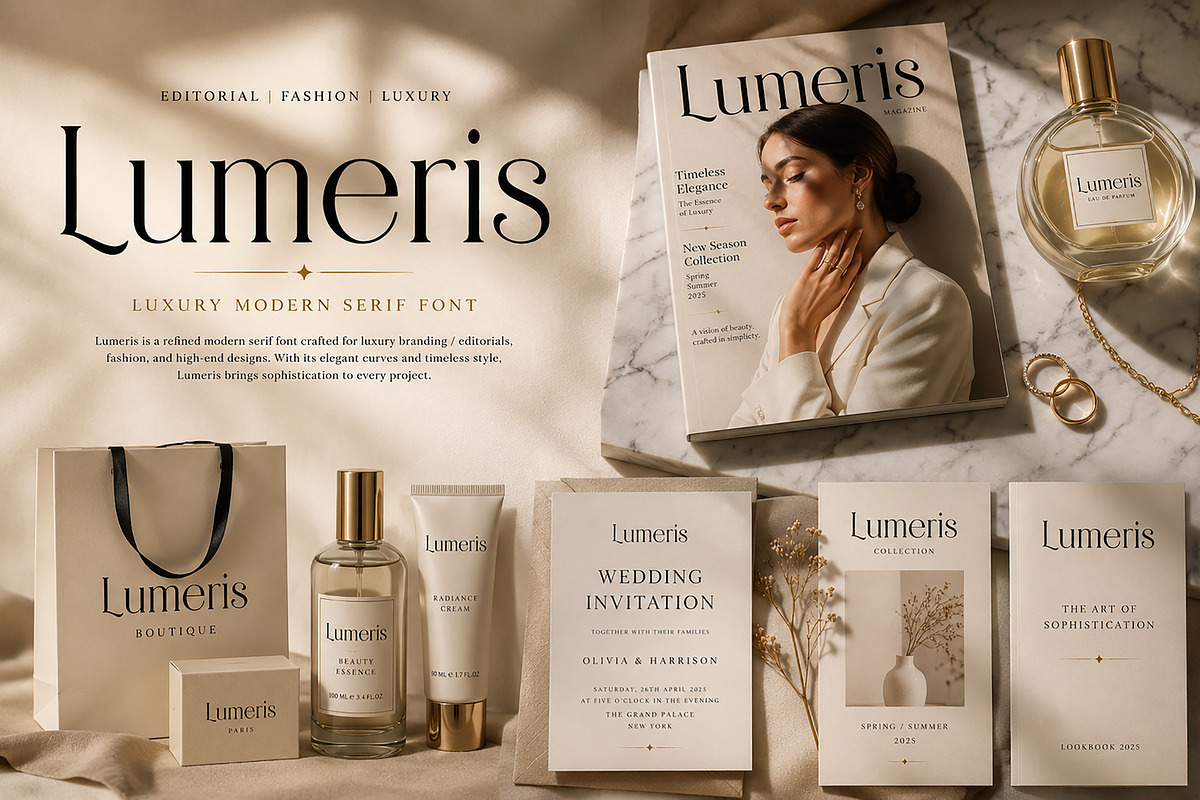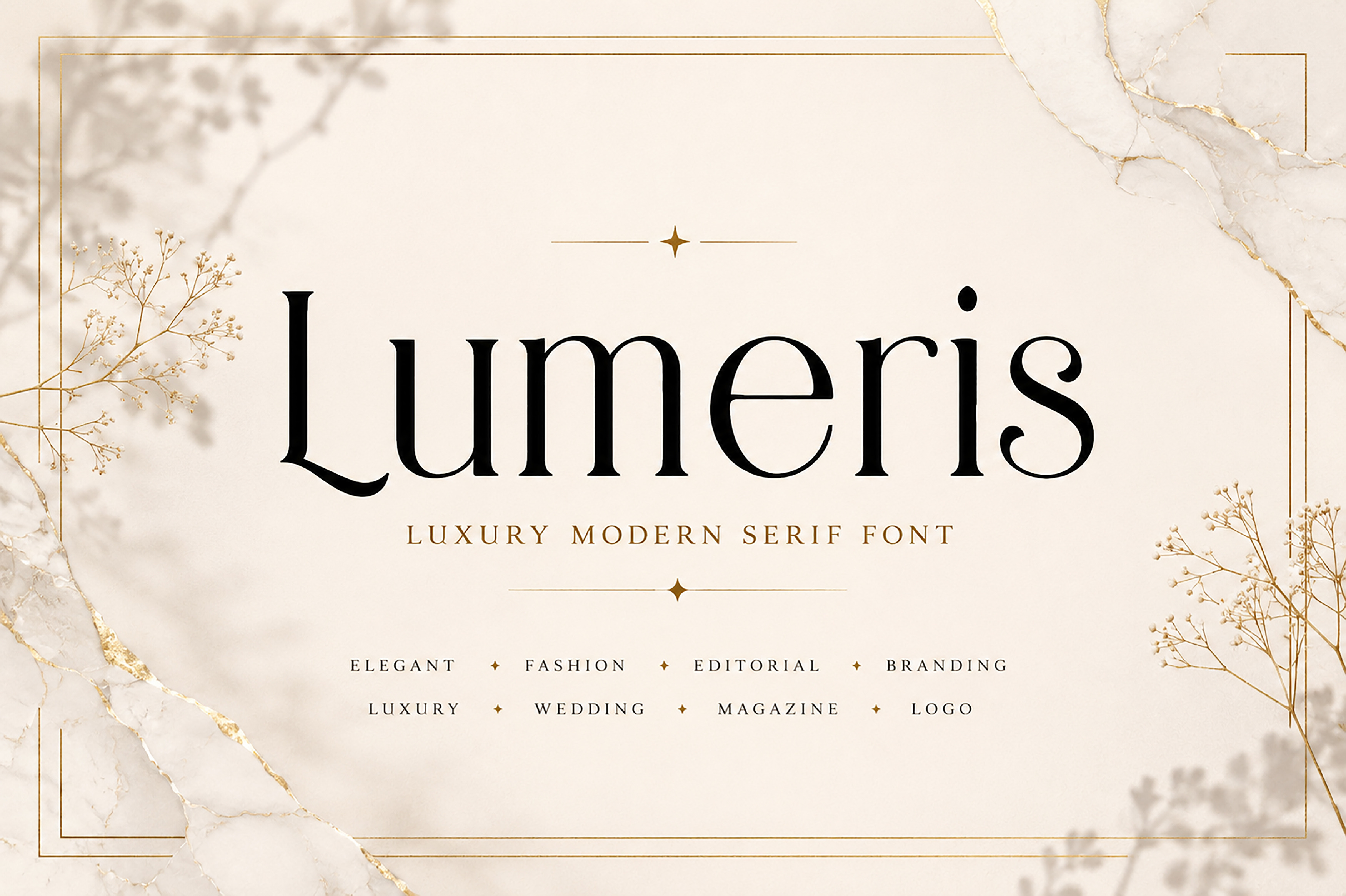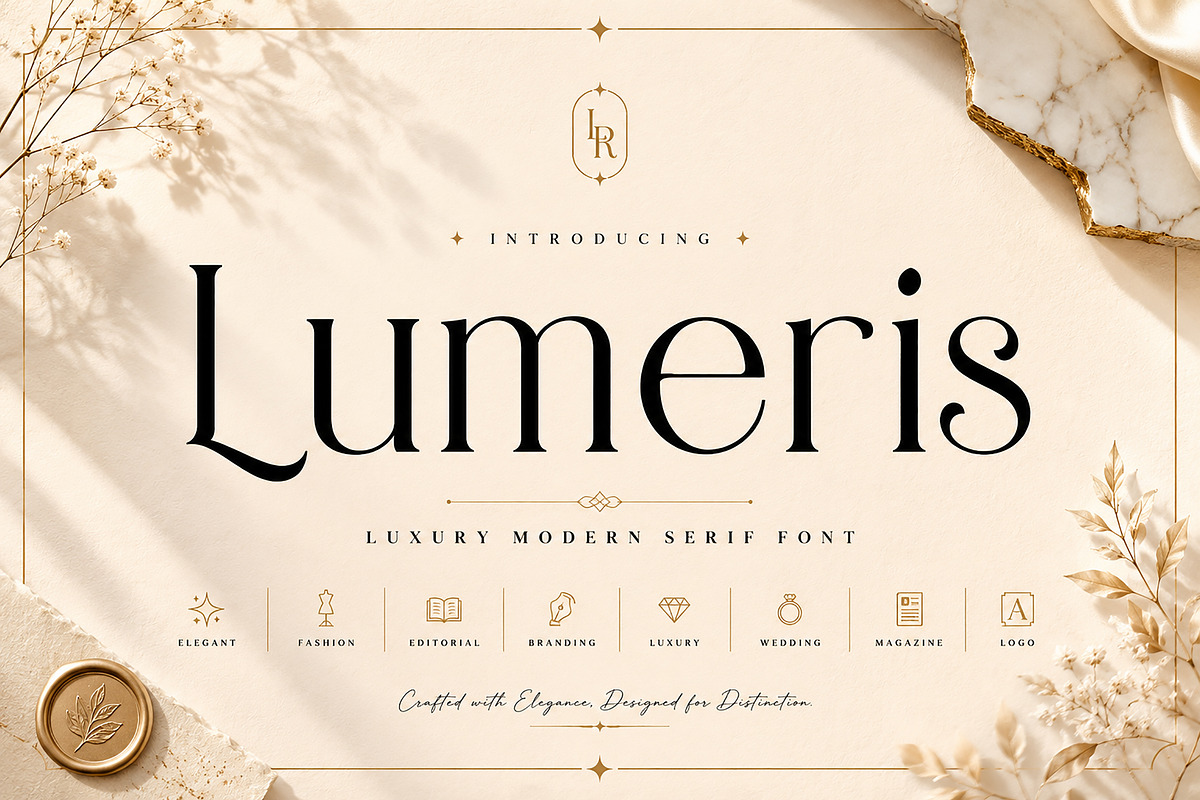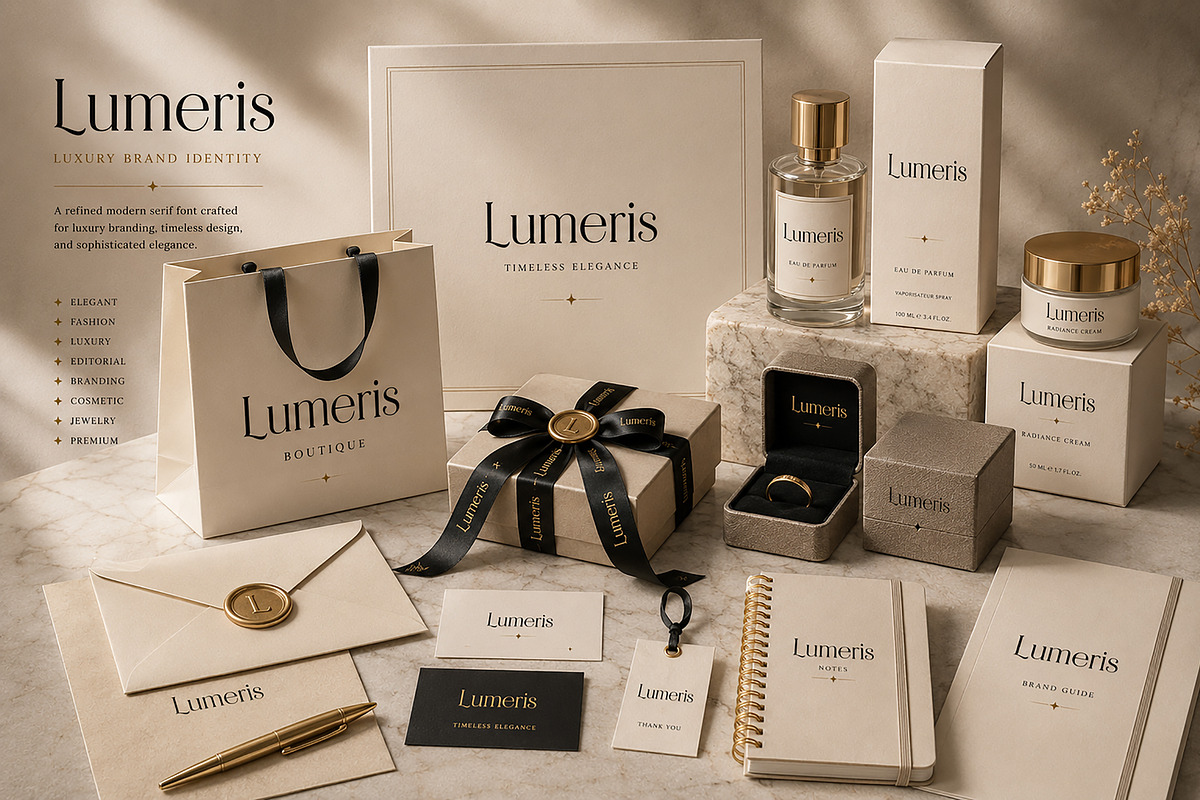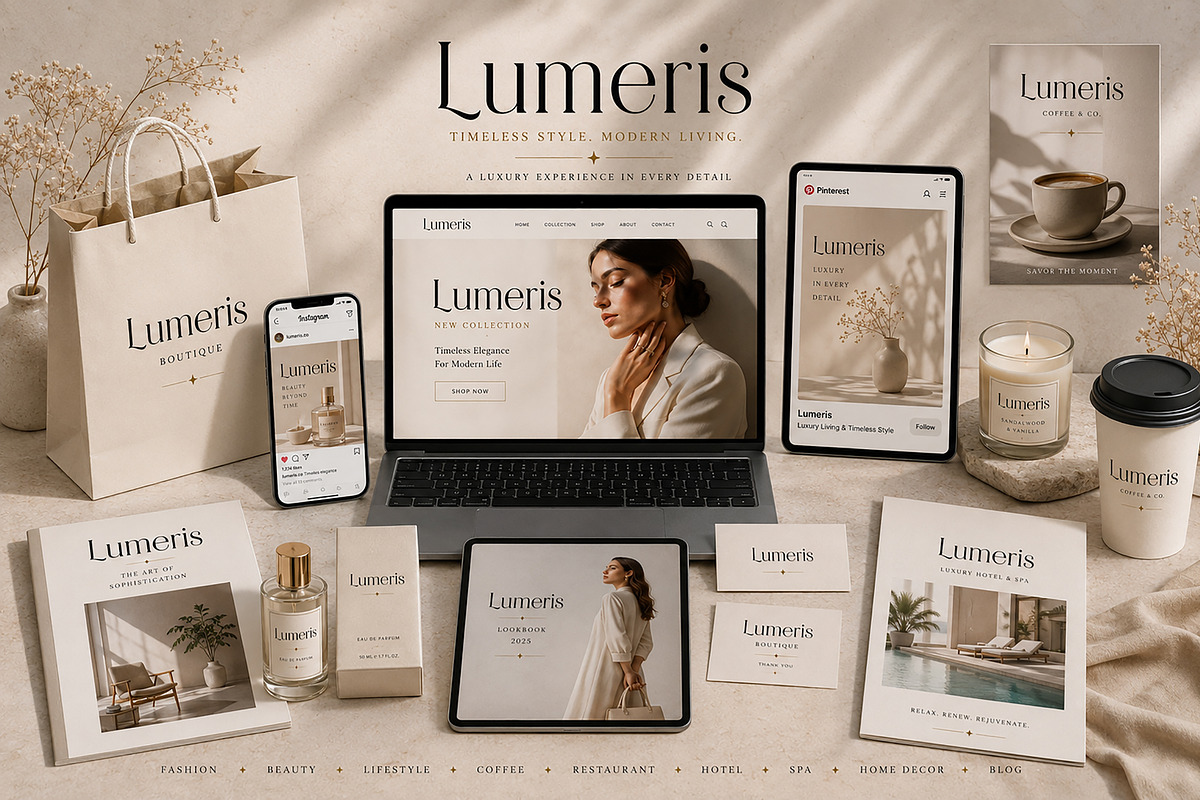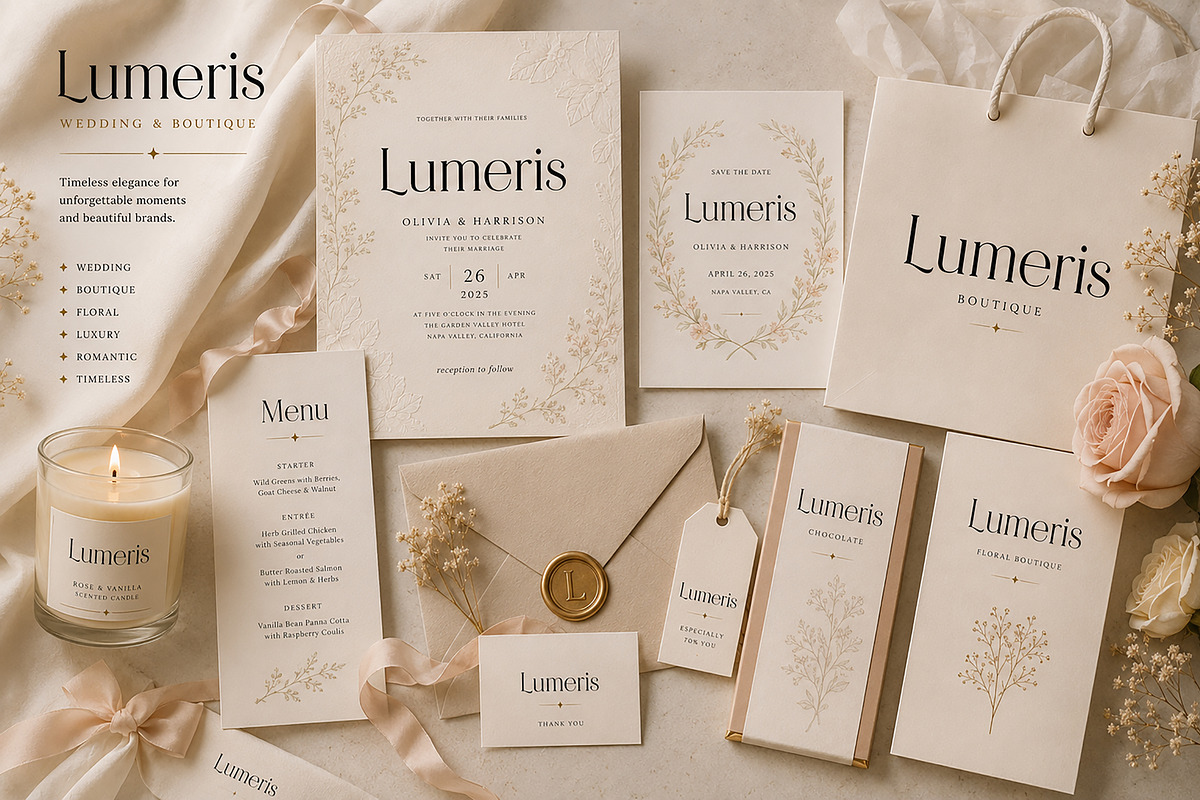
Lumeris – Luxury Modern Serif Font
Lumeris is a refined luxury modern serif font crafted for designers who appreciate timeless elegance, sophisticated branding, and premium editorial aesthetics. With its graceful high-contrast letterforms, delicate curves, and contemporary serif details, Lumeris delivers a perfect balance between classic beauty and modern minimalism.
Designed to elevate high-end creative projects, Lumeris is an excellent choice for luxury branding, fashion campaigns, beauty packaging, editorial layouts, wedding stationery, boutique identities, and premium logo design. Its clean, elegant appearance makes every design feel polished, stylish, and memorable.
Whether you're creating a fashion magazine, cosmetic brand, luxury hotel identity, perfume packaging, jewelry branding, or an elegant website, Lumeris adds a sophisticated visual presence that captures attention while maintaining effortless readability.
Luxury Branding
Fashion Branding
Editorial Design
Magazine Headlines
Wedding Invitations
Boutique Branding
Beauty & Cosmetic Packaging
Perfume Labels
Jewelry Branding
Hotel & Spa Identity
Lifestyle Branding
Premium Packaging
Website Headers
Social Media Branding
Lookbooks
Product Labels
Business Cards
Stationery Design
Luxury Marketing Materials
Luxury Modern Serif Style
Elegant High-Contrast Letterforms
Clean & Minimal Design
Timeless Editorial Aesthetic
Fashion-Inspired Typography
Premium Branding Ready
Lumeris was thoughtfully designed to help brands communicate elegance, confidence, and sophistication. Whether you're designing for a luxury business or creating beautiful editorial compositions, this typeface brings a premium look to every project.